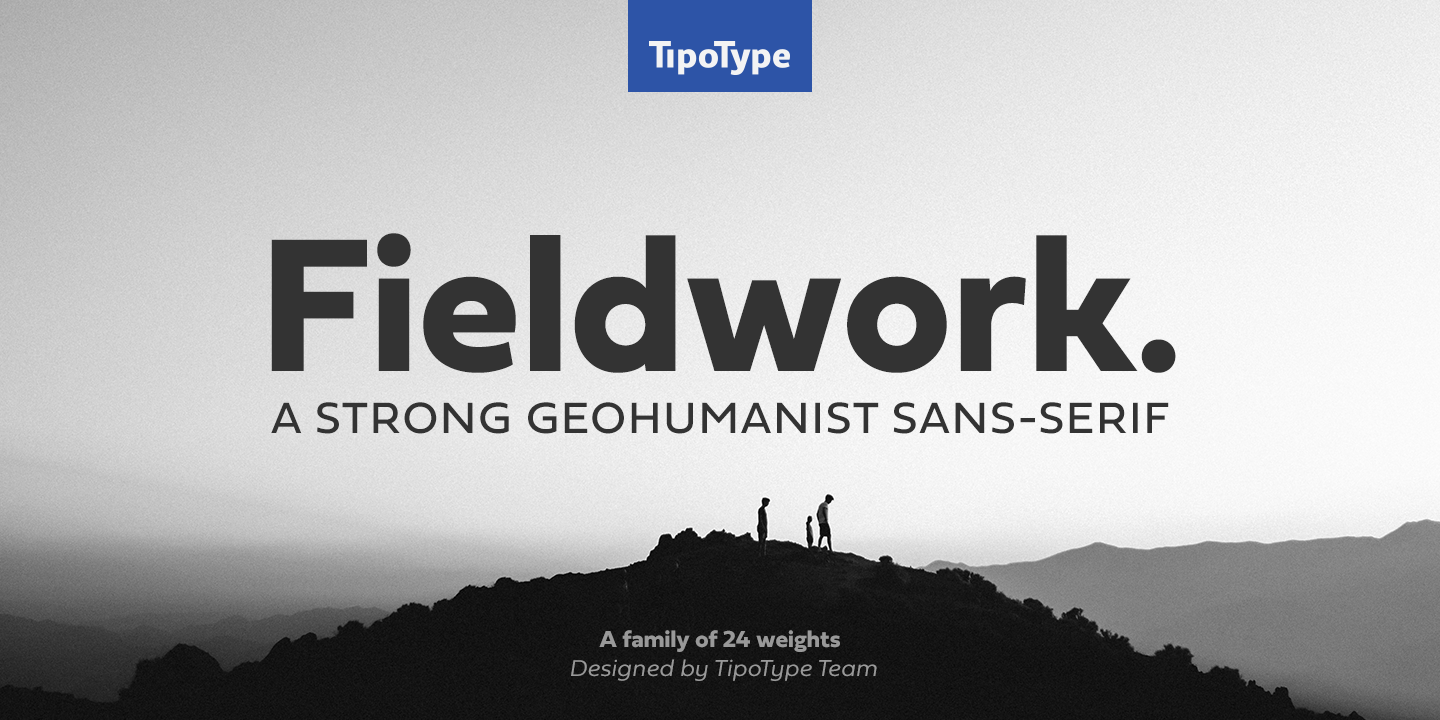
Fieldwork Font is perfect for agricultural company branding, farm-to-table restaurant materials, sustainable farming campaigns, outdoor research documentation, environmental study graphics, botanical garden signage, organic produce packaging, rural community newsletters, agricultural education resources, and field research publications.
Fieldwork Font is exciting because it captures the authentic spirit and practical wisdom of agricultural work through its earthy, field-tested letterforms that honor the connection between humans and the land while delivering messages with rural authenticity and sustainable farming values.
Fieldwork Font family includes Regular, Bold, Light, Harvest, Italic, Condensed, Organic, and Rural variations, offering designers a complete agricultural toolkit to create grounded visual communications that celebrate farming traditions and environmental stewardship across sustainable applications.
Fieldwork Font embodies the essence of agricultural heritage and sustainable farming practices, making it an essential choice for farms, environmental organizations, and food producers who champion sustainable agriculture and the vital connection between healthy soil and healthy communities. This authentically grounded typeface brings agricultural credibility to any design project, whether you're developing farm brand identities, creating educational materials about sustainable agriculture, or designing communications for environmental conservation programs. The naturally balanced character design of Fieldwork Font Free Download ensures maximum authenticity while maintaining excellent readability across both outdoor signage applications and digital platforms promoting agricultural sustainability and environmental awareness.
Agricultural industry professionals consistently choose Fieldwork Font for sustainable farms, agricultural cooperatives, and environmental education organizations because of its ability to communicate authenticity, environmental responsibility, and deep respect for farming traditions. The font's grounded appearance makes it particularly effective for targeting environmentally conscious consumers and creating brand experiences that emphasize sustainable practices and local food systems.
Fieldwork Font excels in educational and environmental applications where agricultural knowledge and sustainability awareness are fundamental. Agricultural extension services, environmental science programs, and sustainable farming initiatives rely on this font to create materials that connect urban audiences with rural realities and farming wisdom.
The food and environmental sectors have embraced Fieldwork Font for organic food brands, farmers markets, and environmental advocacy organizations. Its authentic visual character helps businesses create communications that celebrate the hard work of farming communities and promote sustainable agriculture, appealing to consumers seeking genuine connections to their food sources and environmental stewardship.